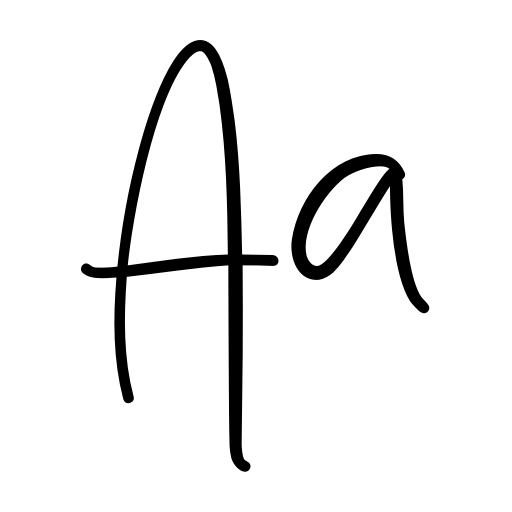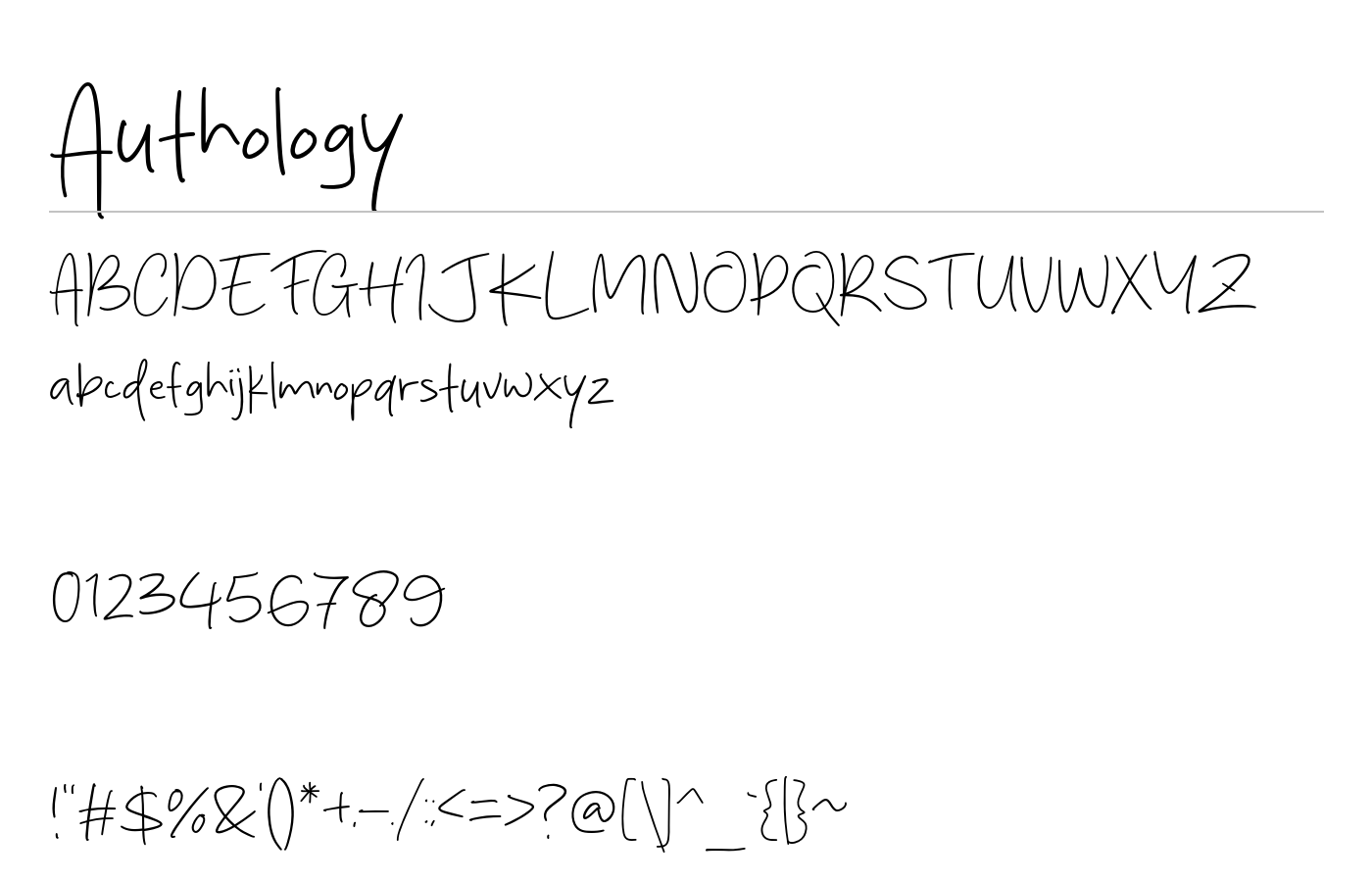
Authology is a light, handwritten sans serif font with a casual and airy feel. Its tall, narrow letterforms and gentle irregular strokes create a personal, approachable style perfect for informal branding, lifestyle blogs, and creative projects that want to convey friendliness and authenticity. This font works well in headlines and short texts where a unique, relaxed handwritten touch is desired.
Authology Font
About Authology Font